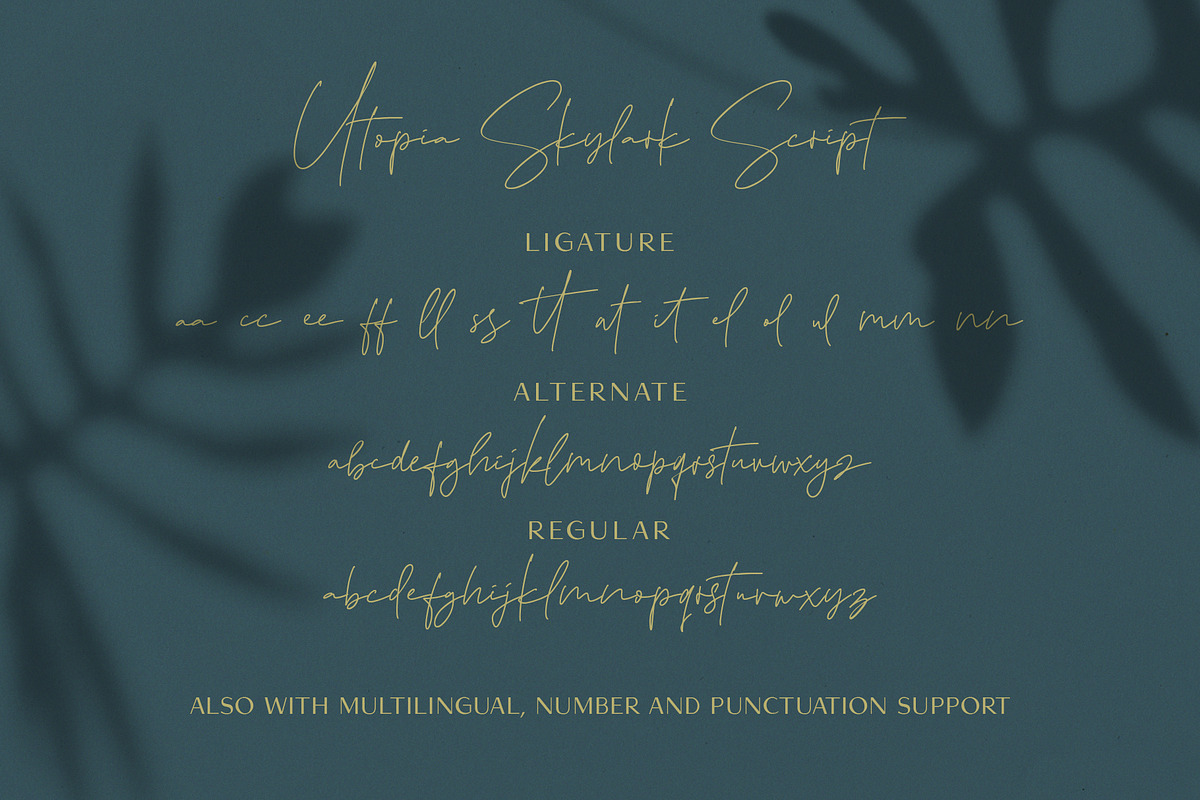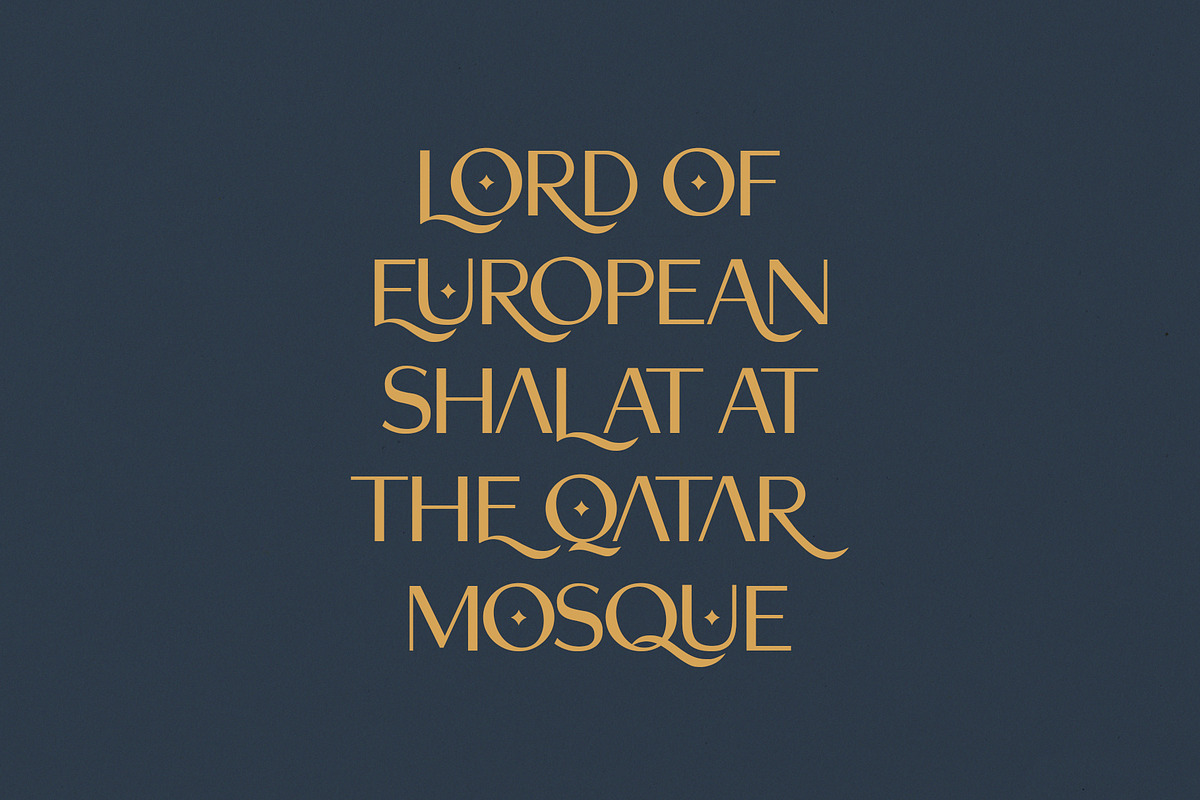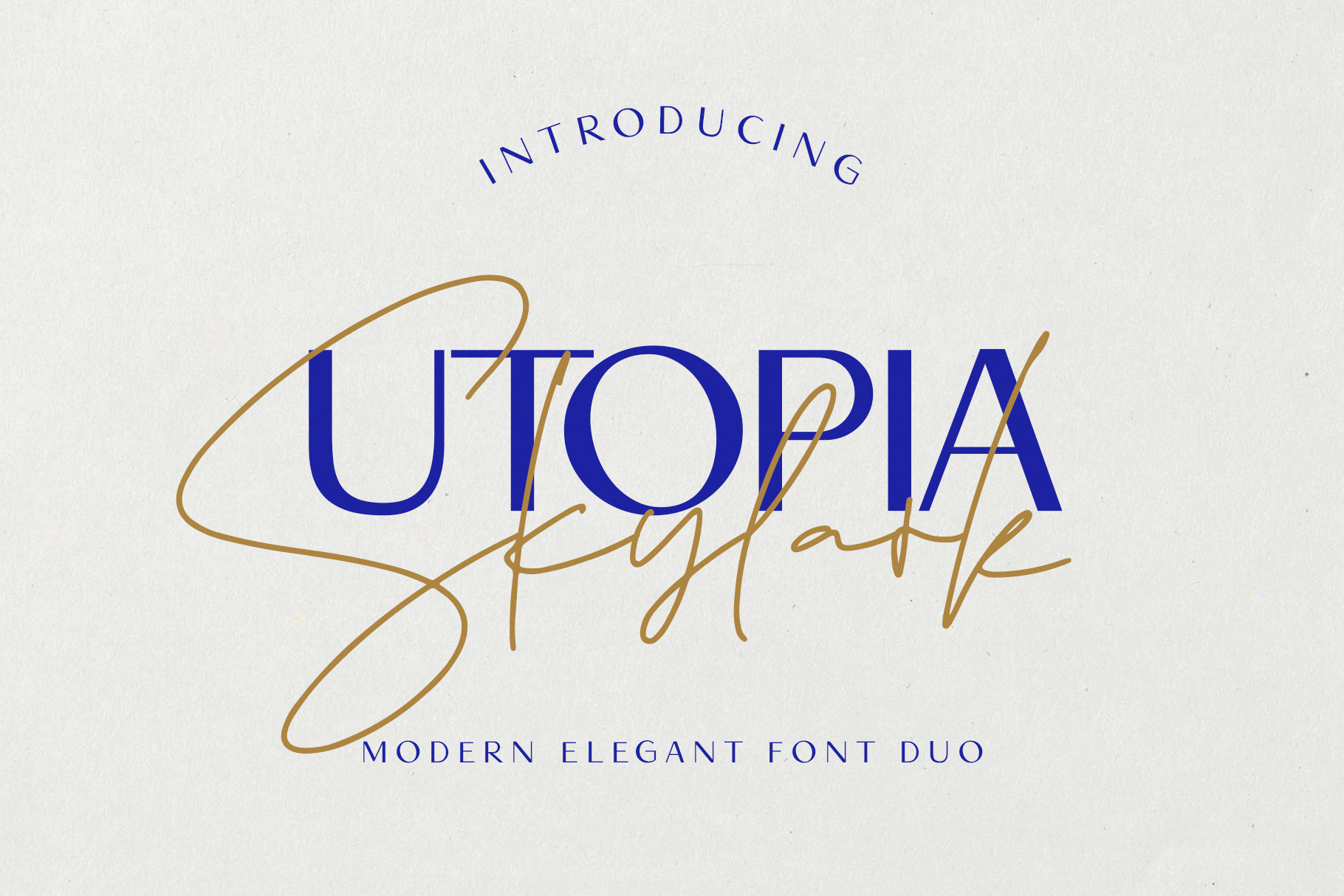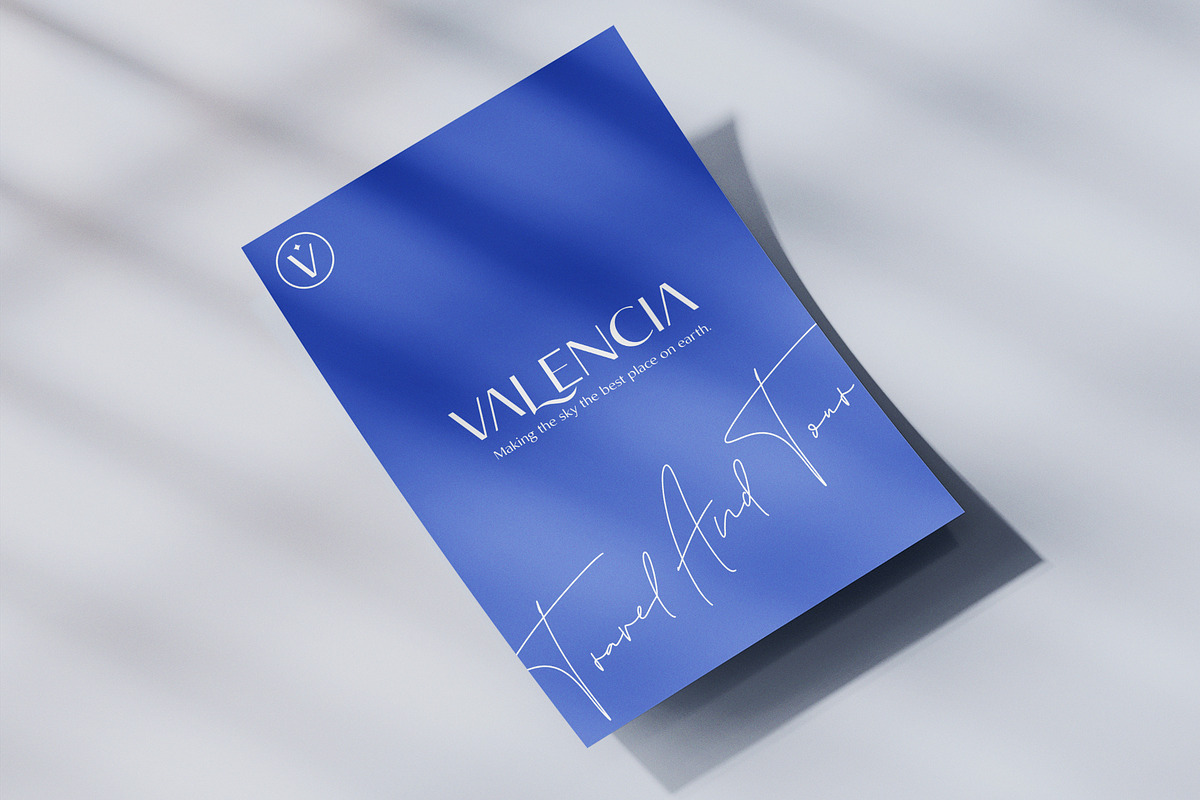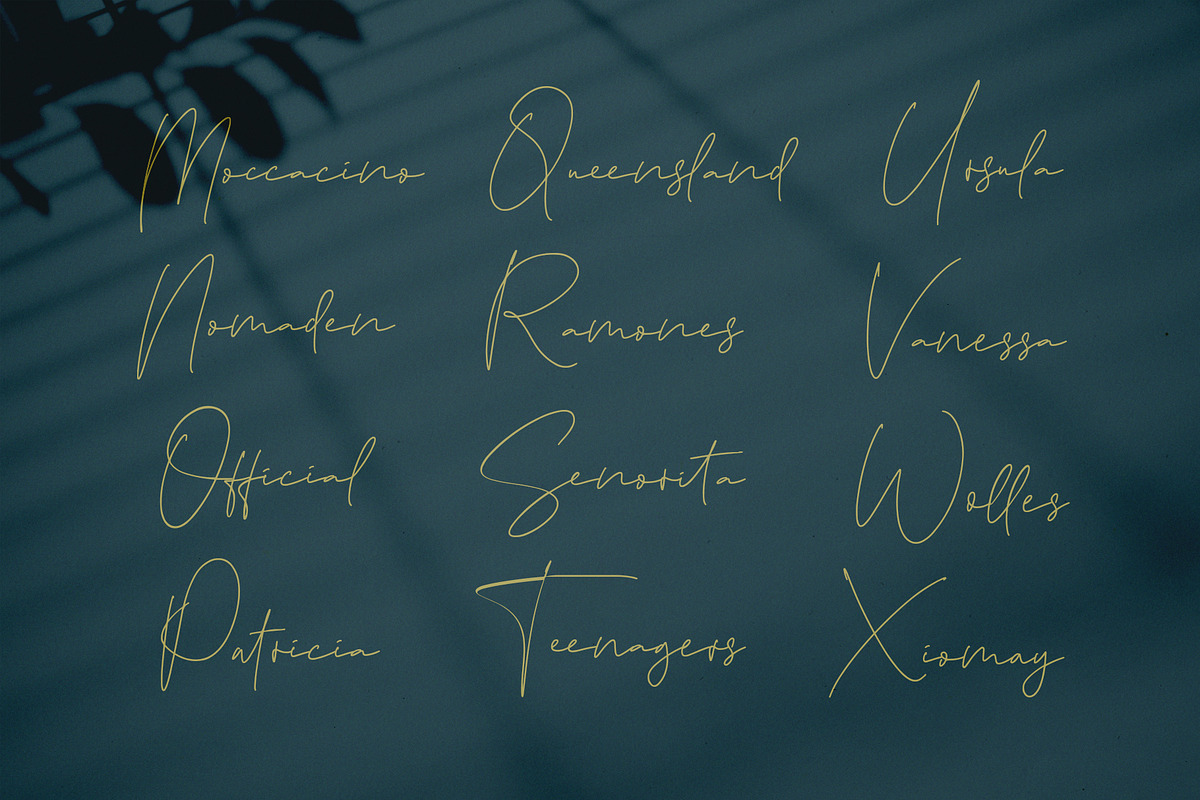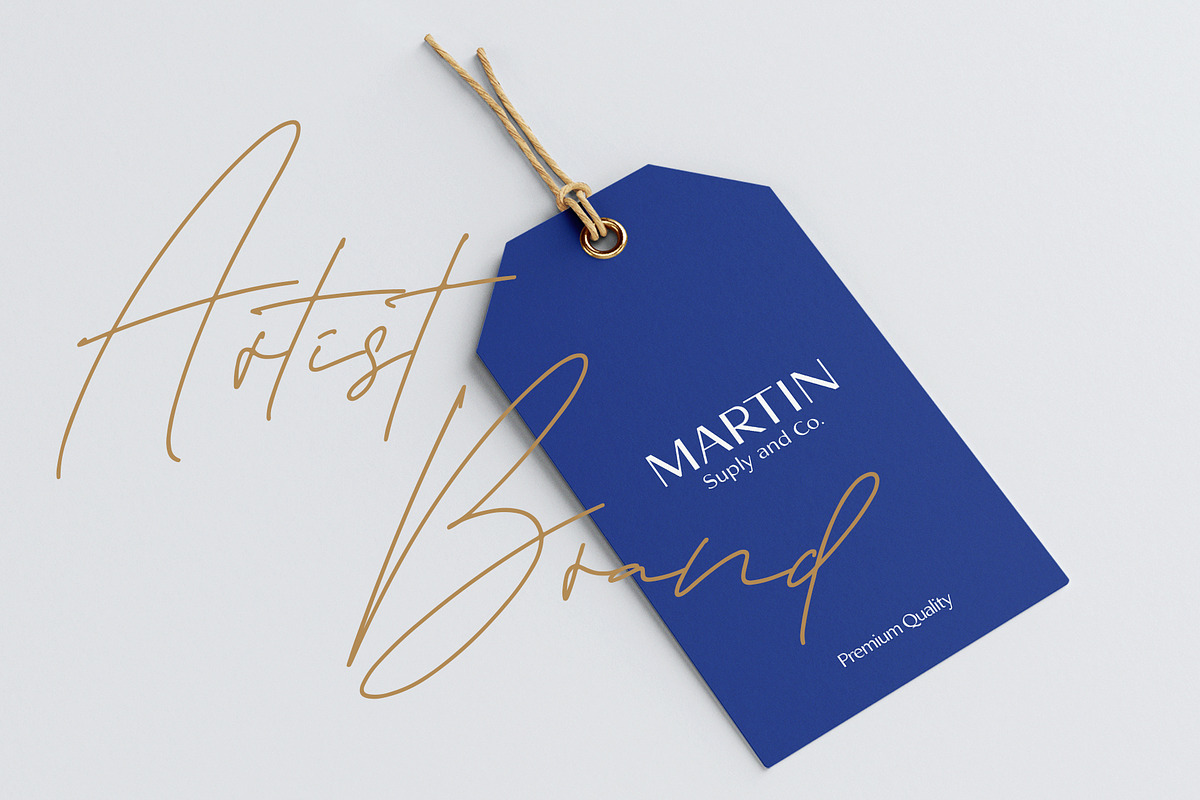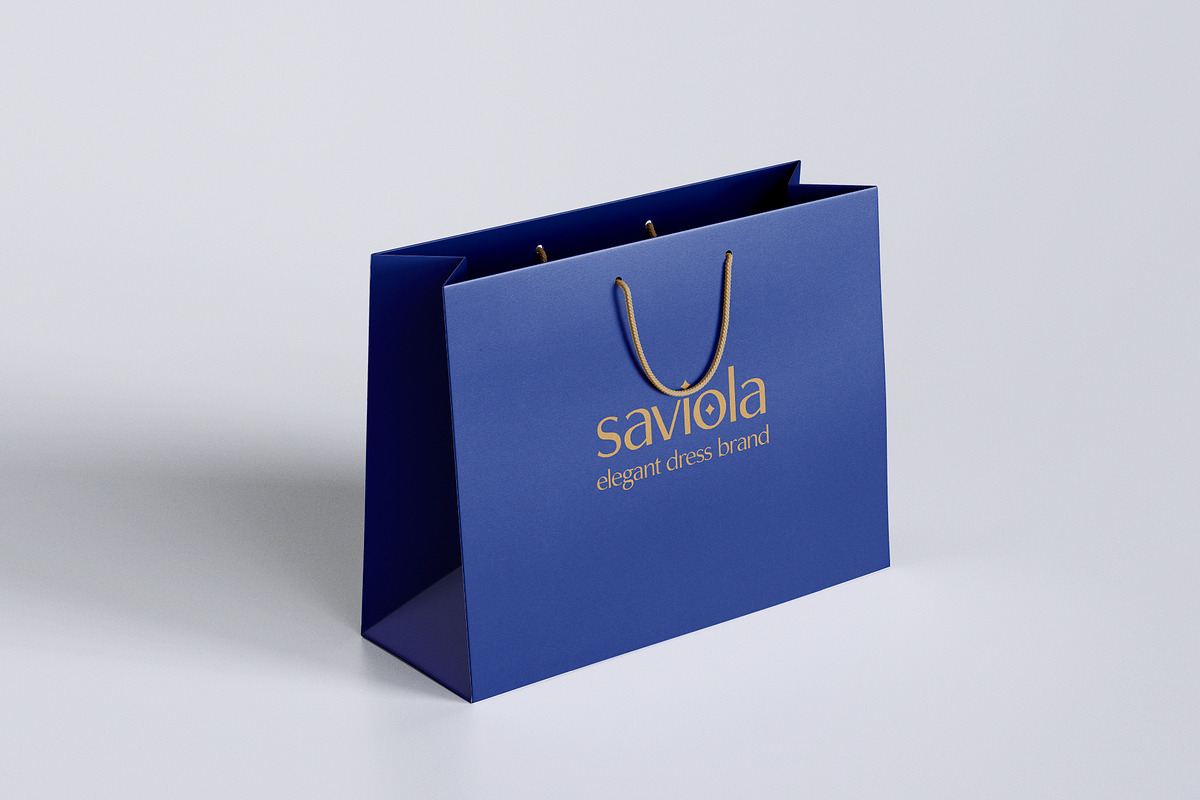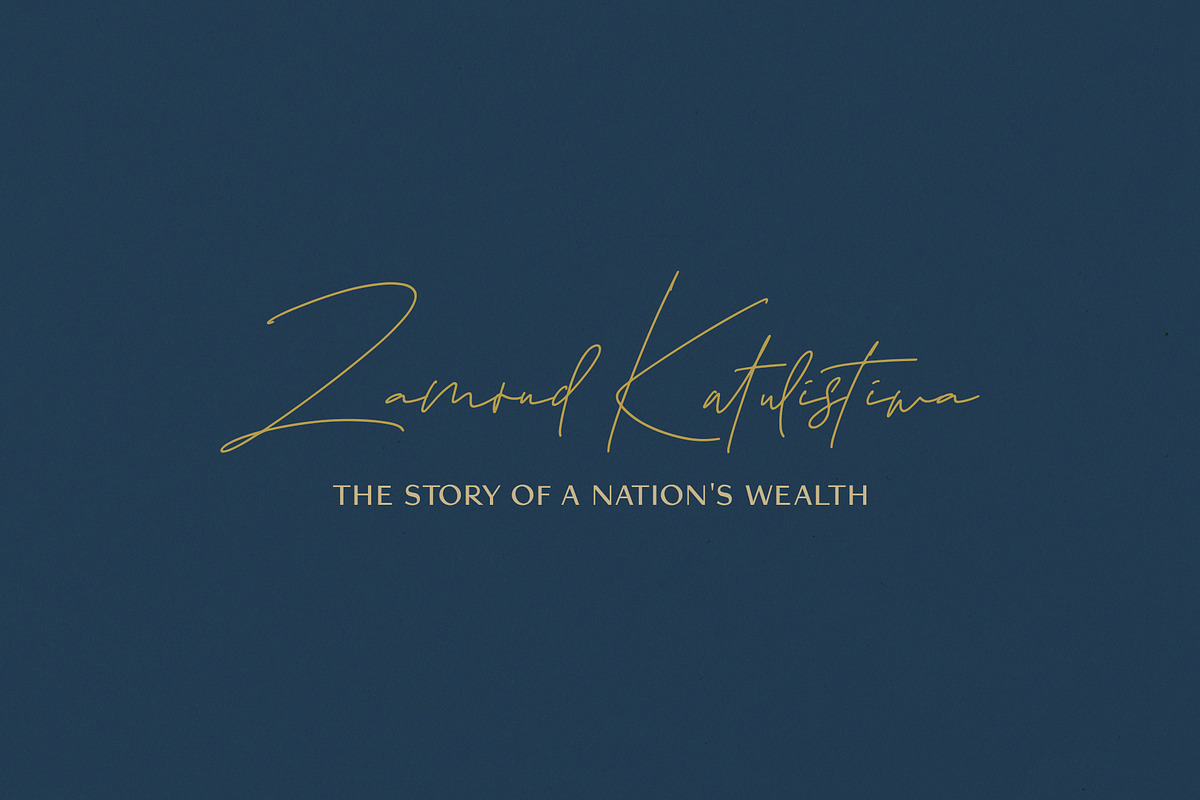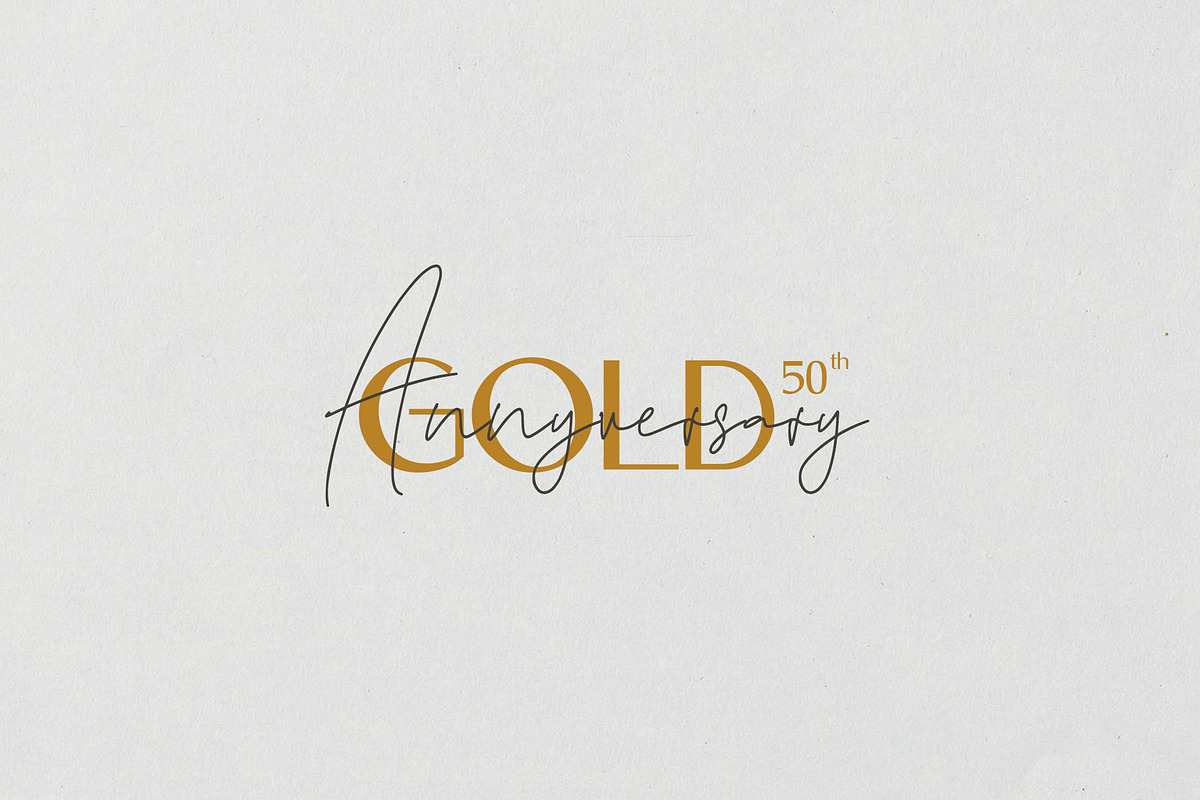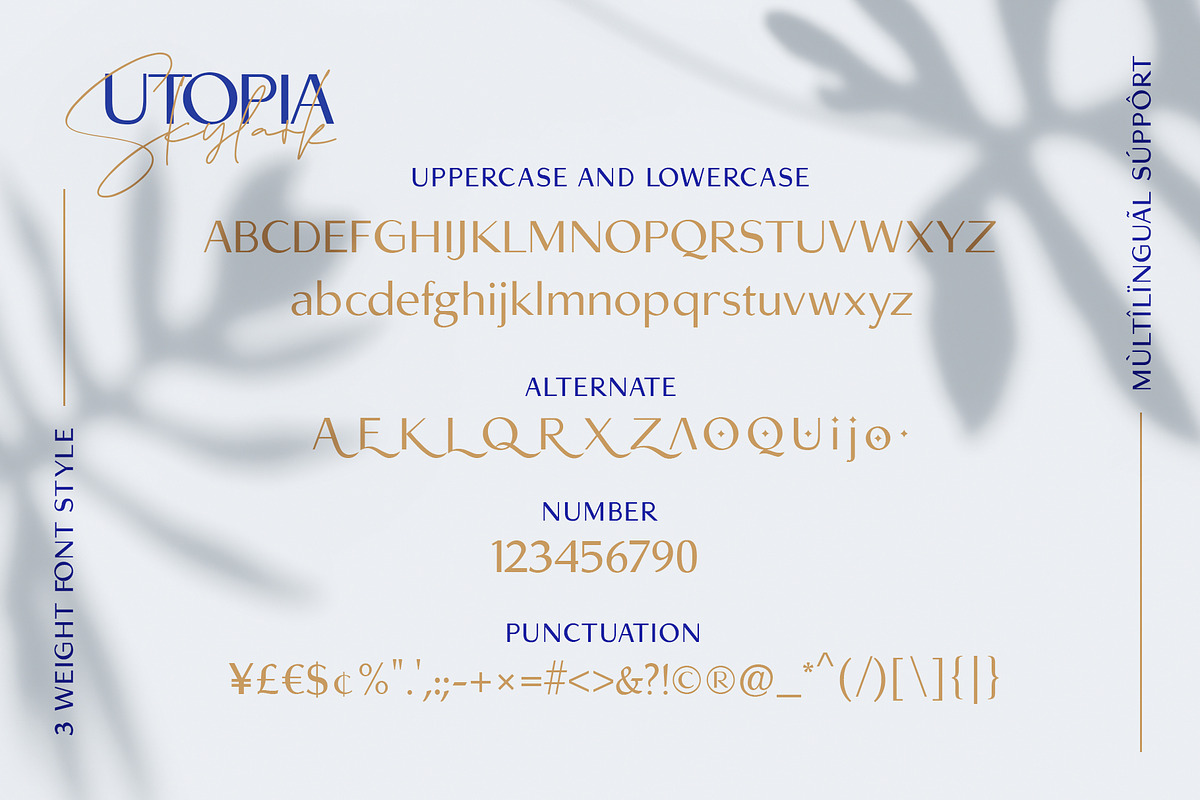
Utopia Skylark - Font Duo
Introducing Utopia Skylark, modern elegant font duo style (Sans-Serif and Script). Utopia Skylark have 3 style weight for your best design. This font offers a unique look and is very attached to your design in a classic or modern style.
Utopia Skylark is the right choice of fonts for your projects in the form of logos & branding, print media, social media posts, wedding invitations, watermarks or works that require hand styles with a distinctive style.